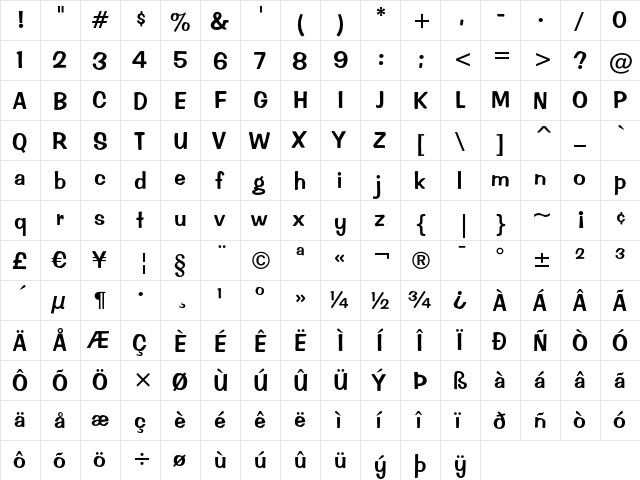
Impress Regular
Design Context for Impress Typeface
Impress offers clean, dependable letterforms without strong stylistic allegiance, making it a practical choice for designers who need flexibility.
Pro Tip: Use Impress in both headline and body roles to test its range before committing to a single application.